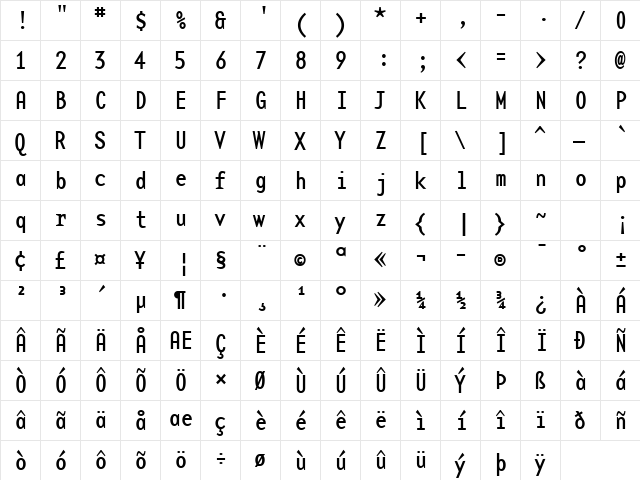
BaseMonoNarrowReg Regular
Design Context for BaseMonoNarrowReg Typeface
BaseMonoNarrowReg brings the precise, column-aligned rhythm of monospaced typography to designs that value technical clarity and systematic order.